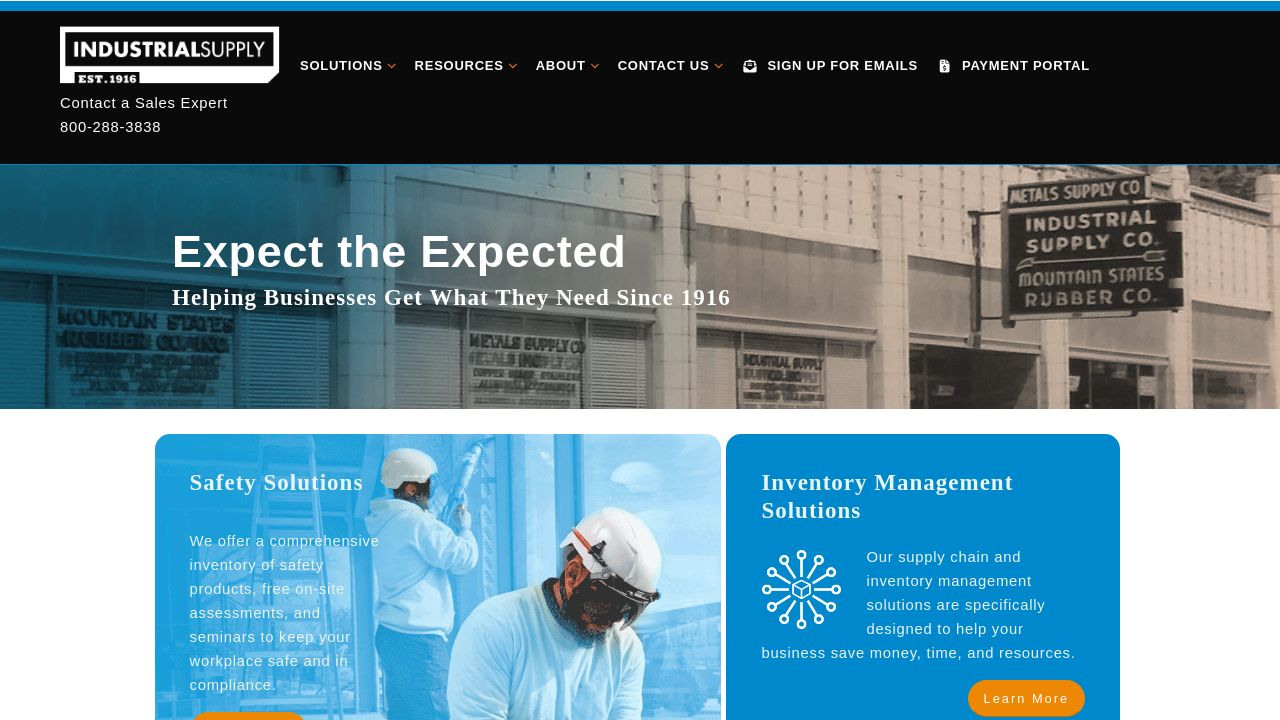
What fonts does Indsupply use?
Industrial Supply Company, found at indsupply.com, utilizes a diverse range of fonts to enhance its brand presence in the industrial sector. The primary font, Poppins, alongside Arial, reflects a contemporary approach, appealing to safety and construction professionals. Custom fonts like slick and the Font Awesome families are tailored for icons and branding, helping to convey reliability and clarity in their product offerings. This strategic font selection aligns with their mission of being the largest distributor in the Intermountain West.
Used for UI icons rather than readable text - no preview available.
Frequently asked questions about Indsupply.com's fonts
What fonts are used on indsupply.com?
The primary fonts used on indsupply.com are Arial, Poppins, and slick, along with various custom fonts like Font Awesome 6 Brands and Simple-Line-Icons.
How do the fonts on indsupply.com compare to alternatives?
Fonts like Poppins offer a clean and geometric aesthetic compared to alternatives like Open Sans, making them suitable for the industrial sector’s branding needs.
What styles and weights are available for the fonts on indsupply.com?
Fonts on indsupply.com include various styles and weights, such as Arial at weight 400, and Poppins available in normal weight, ensuring versatility for design elements.
Are there fallback fonts used on indsupply.com?
There are no specified fallback fonts on indsupply.com, which indicates a reliance on their primary font stack for consistent branding and presentation.